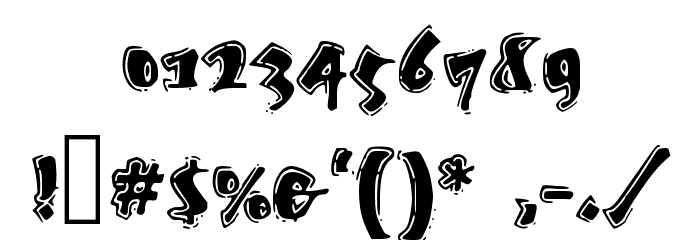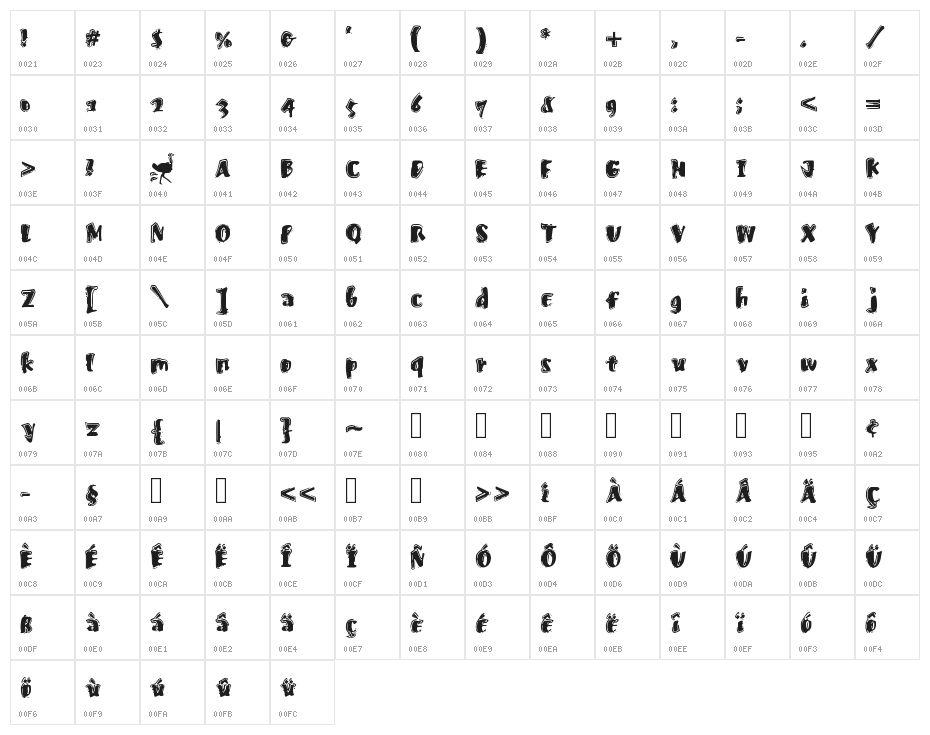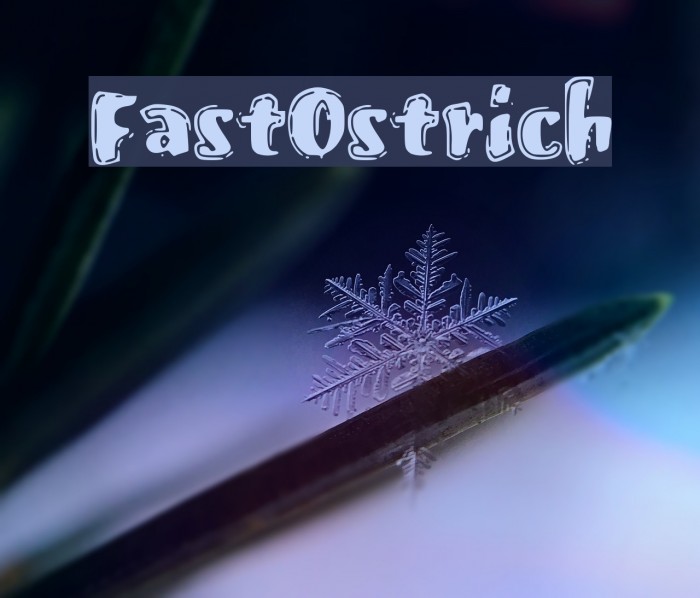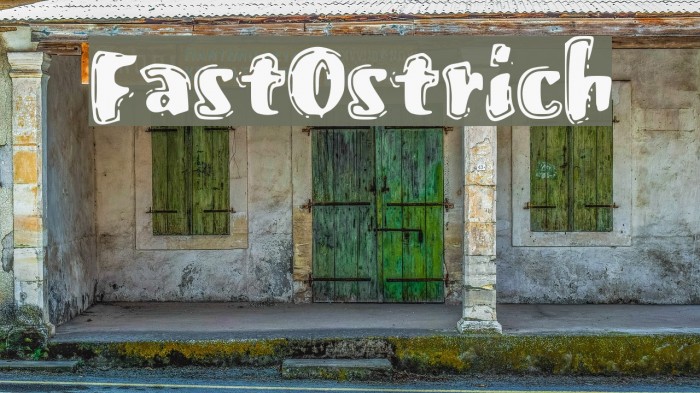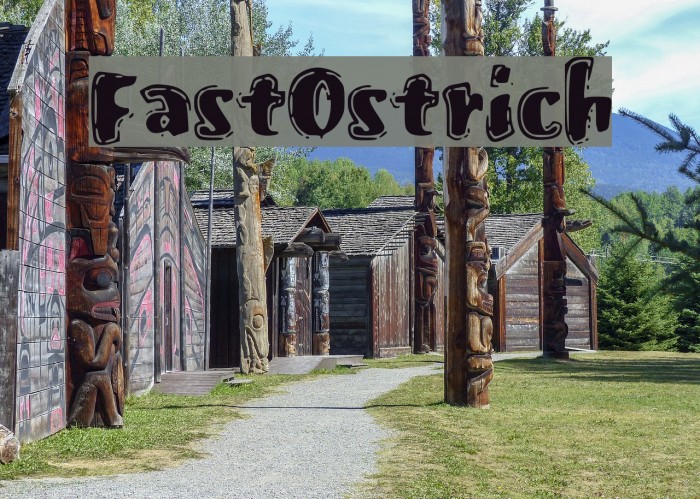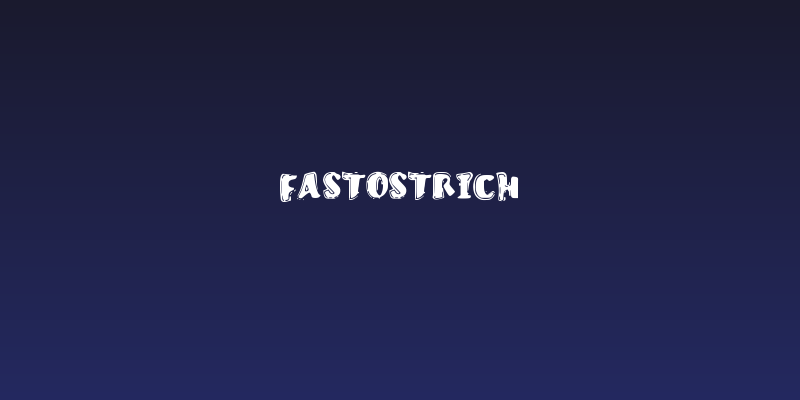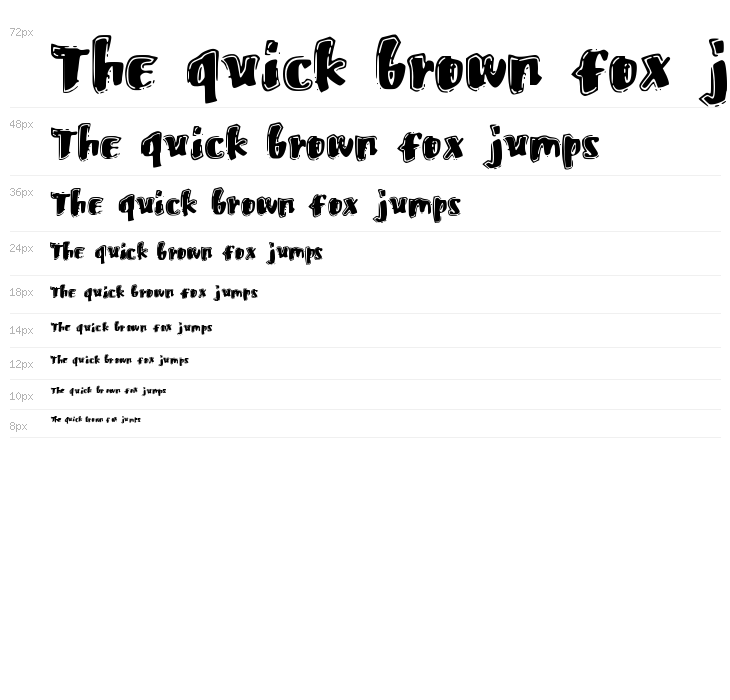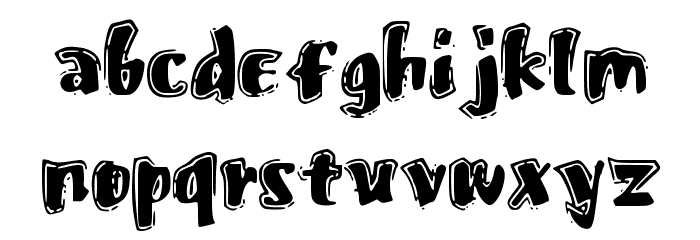
FastOstrich Font
FastOstrich Description
This font features a bold and dynamic style with a playful, graffiti-like appearance. The letters are characterized by thick strokes and irregular edges, giving them a hand-drawn, artistic feel. The uppercase and lowercase letters maintain a consistent style, with a slightly exaggerated, cartoonish flair. The numbers and special characters follow the same aesthetic, making the font suitable for creative and informal designs. The overall look is energetic and eye-catching, perfect for projects that require a bold statement.
| Proposed Projects | Ideal for posters, album covers, street art designs, and any project needing a bold, creative touch. |